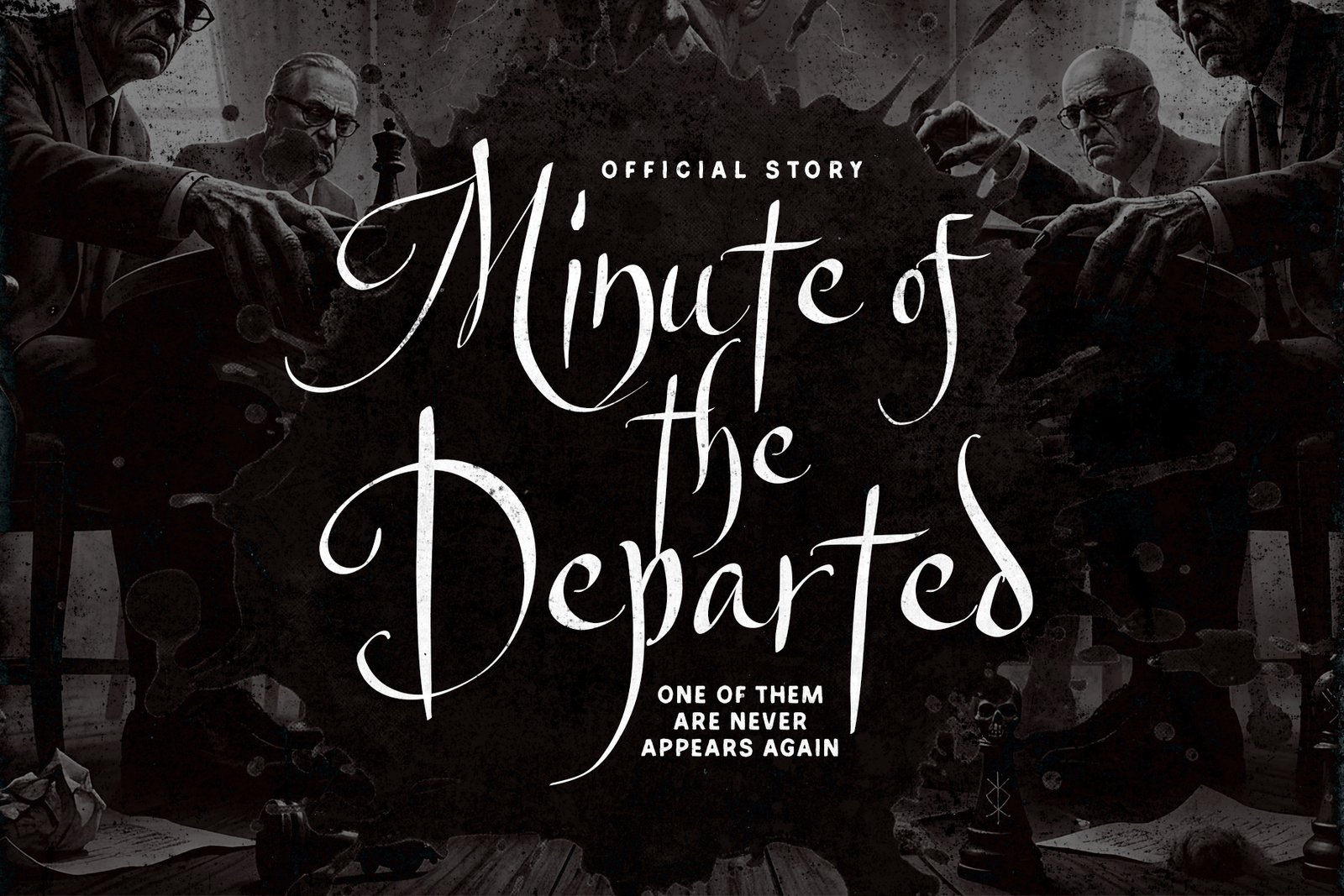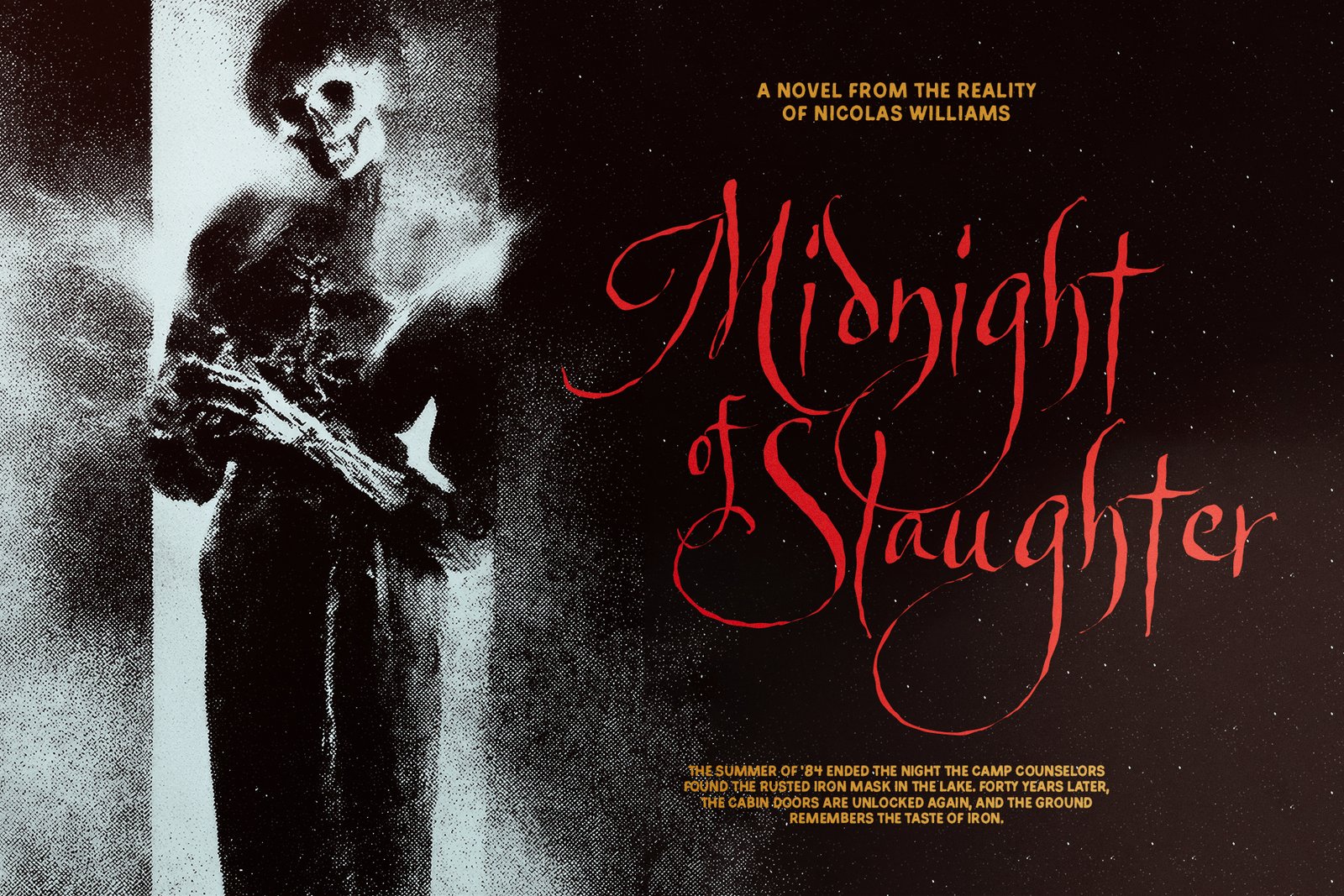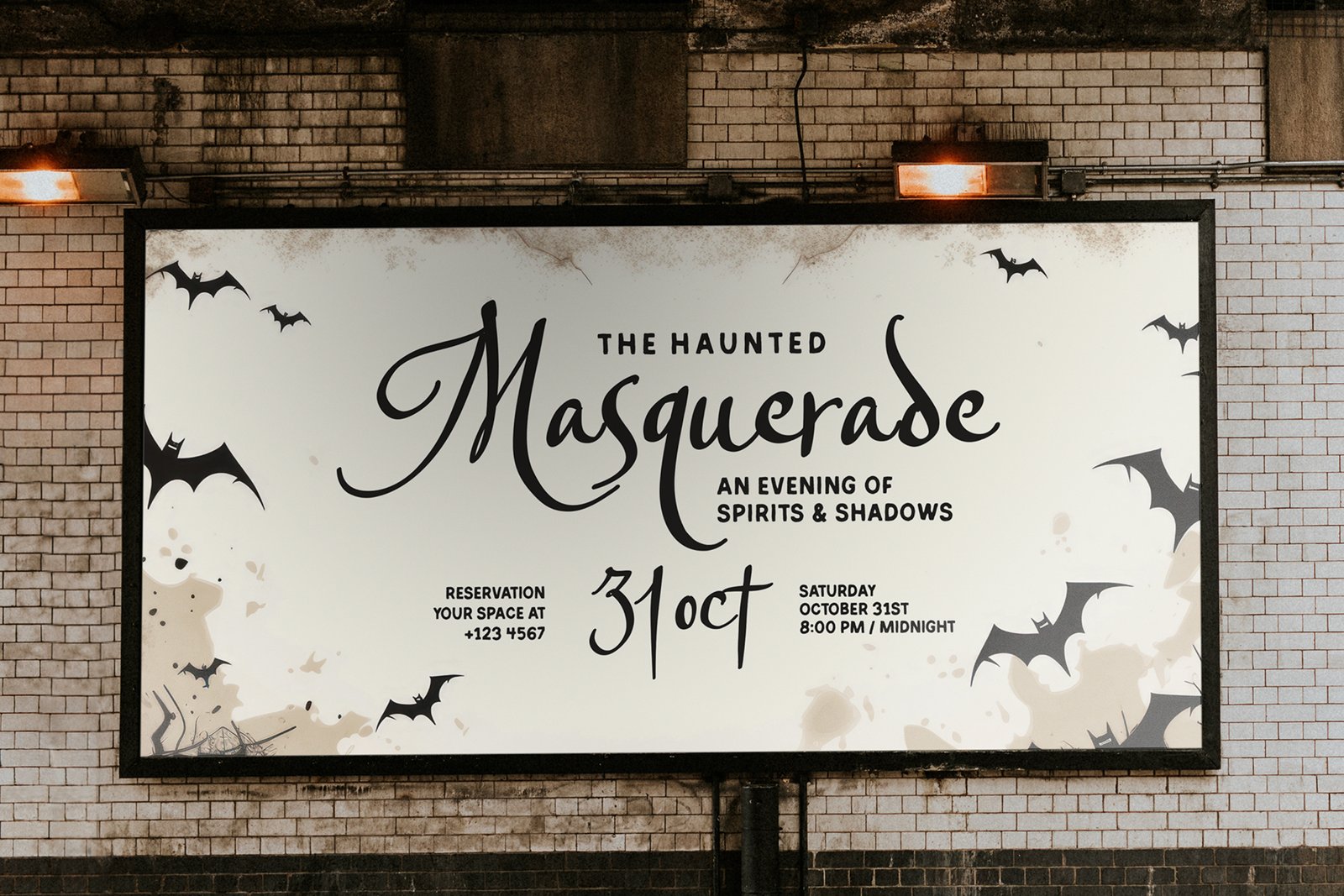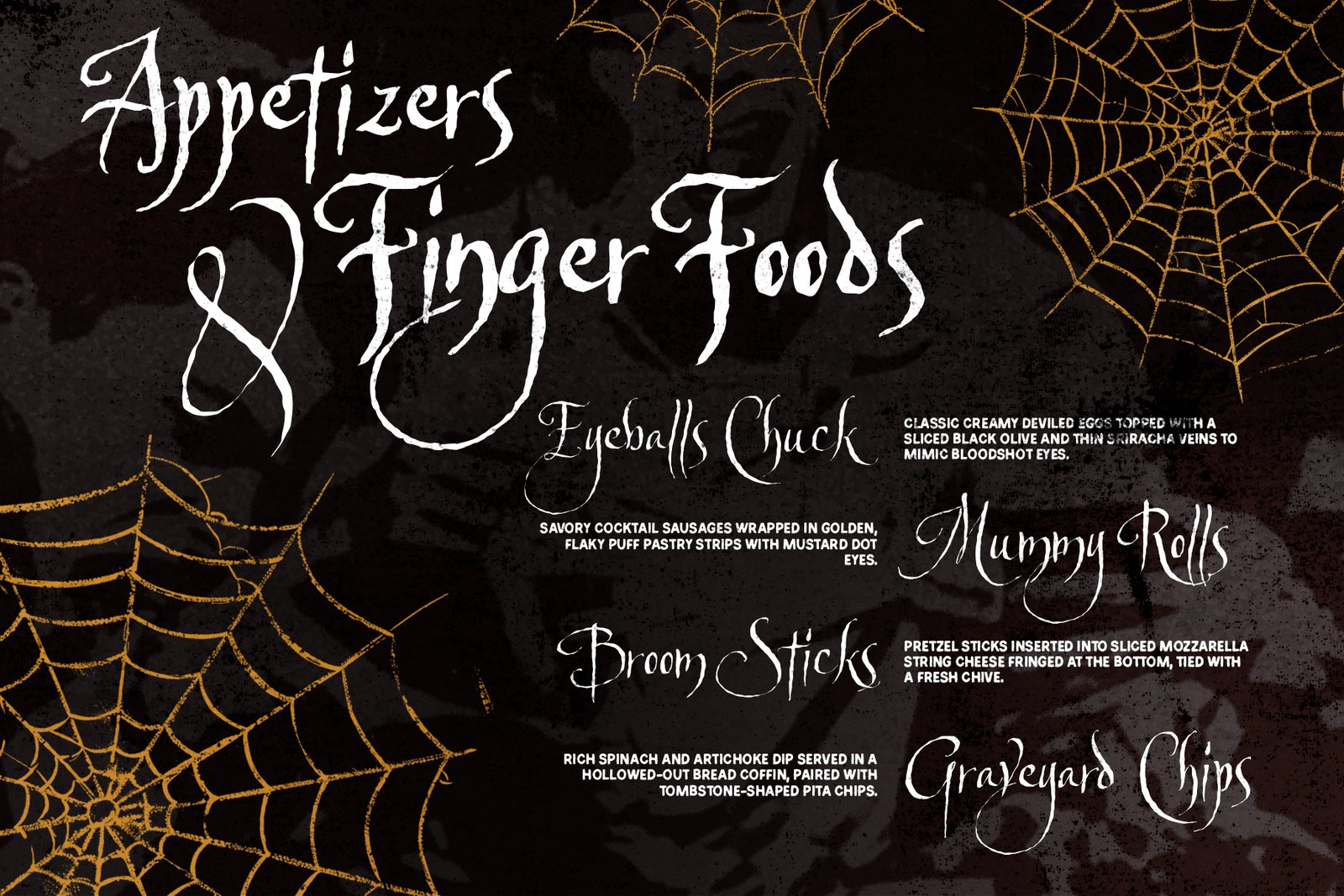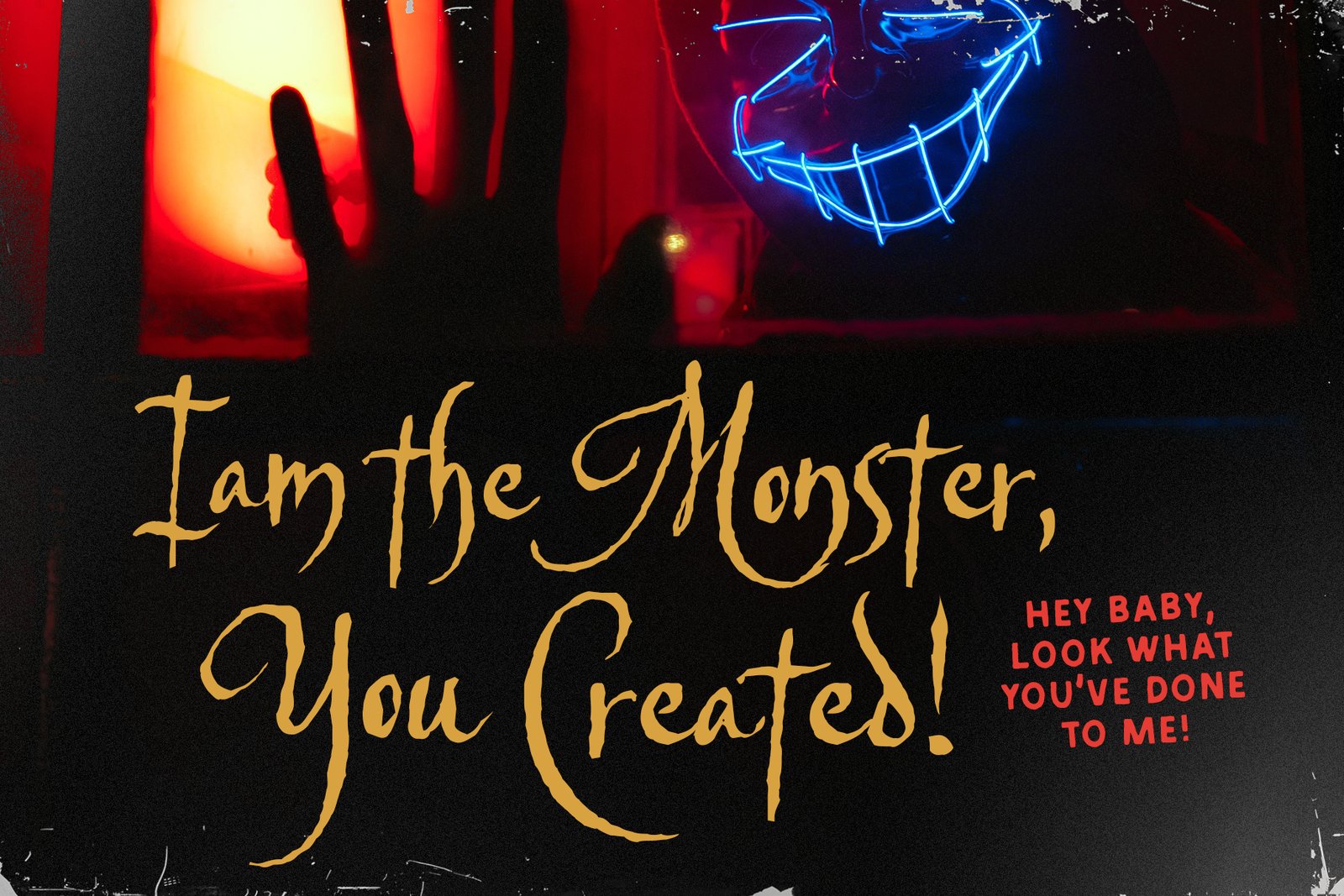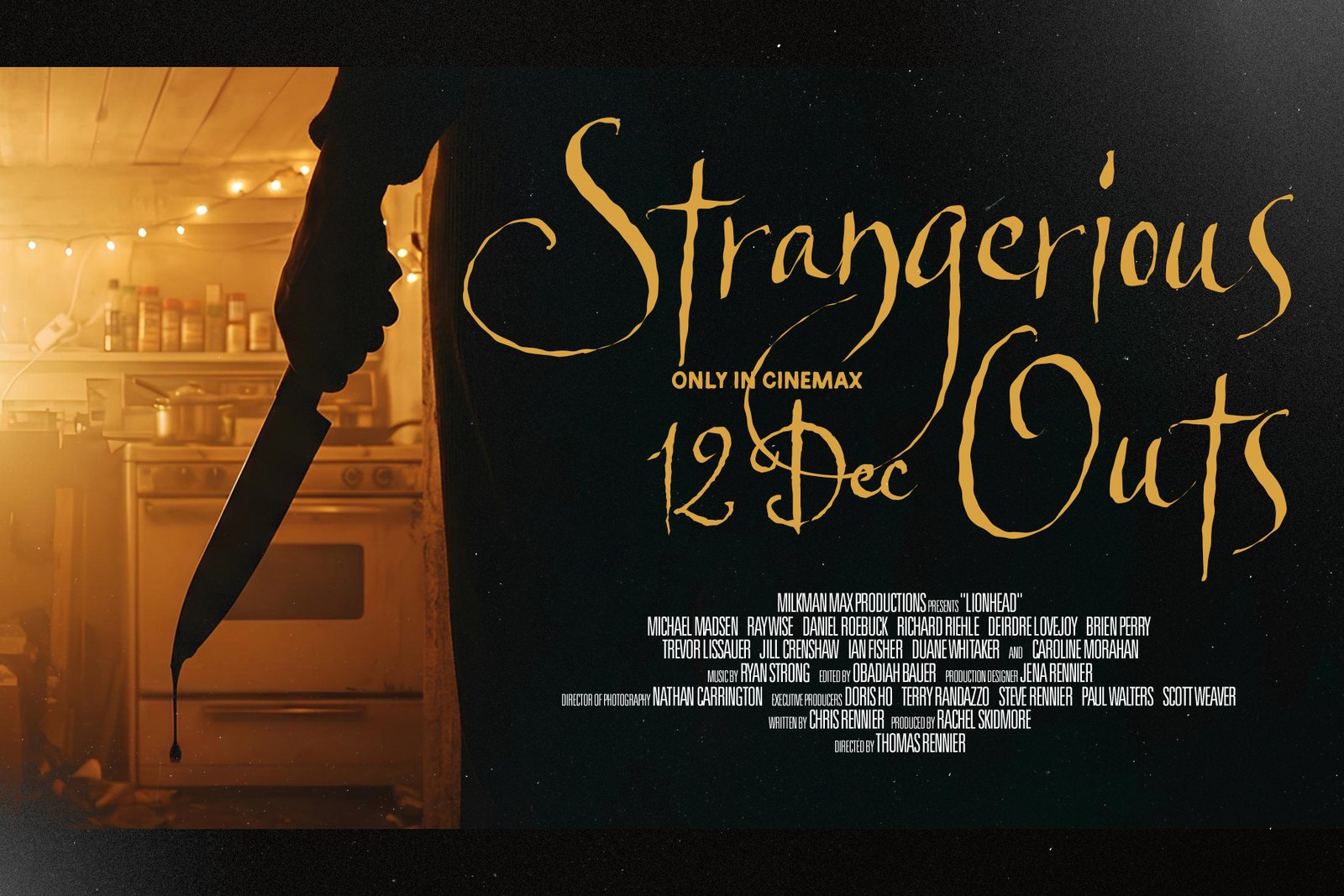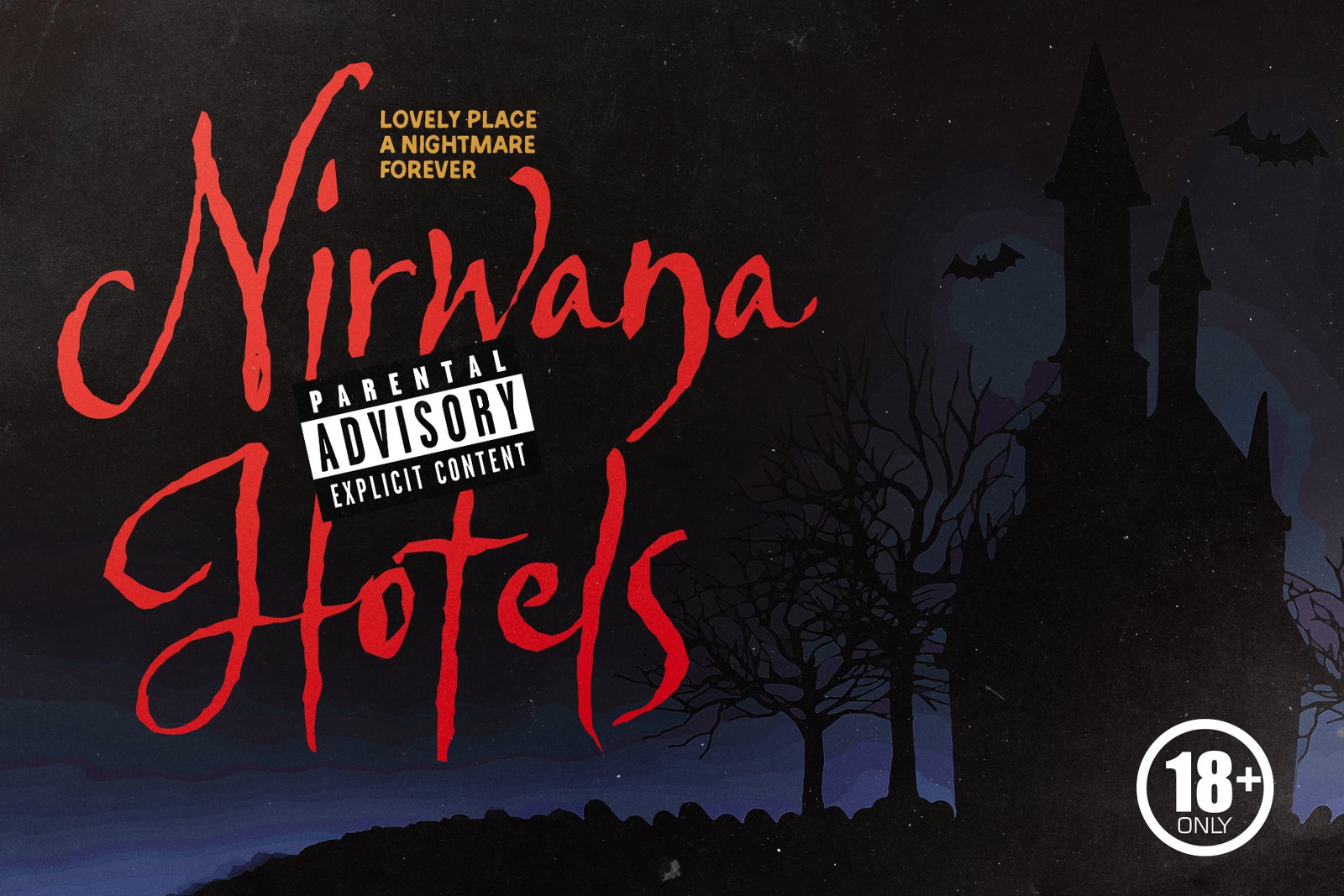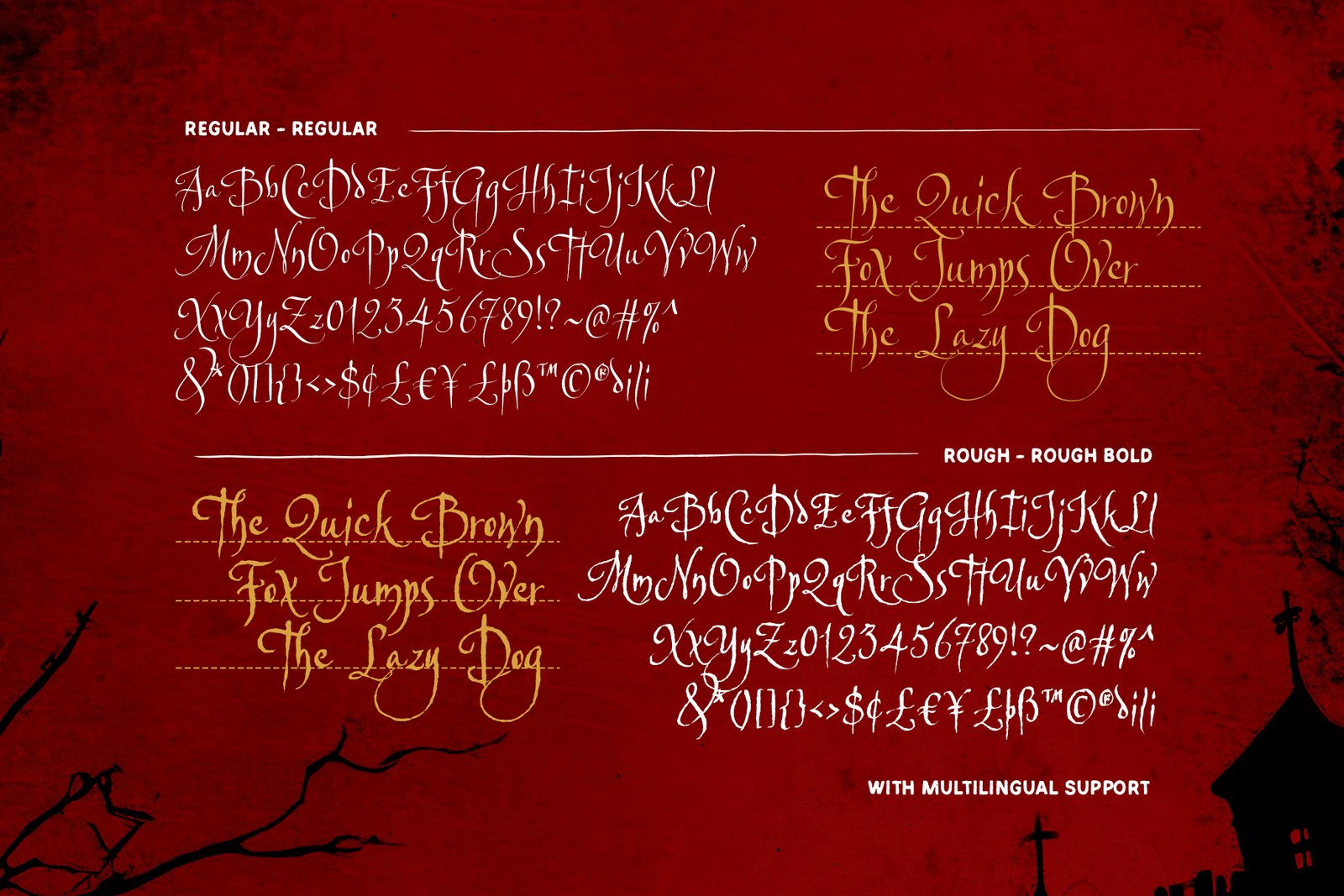
Gothic Saturday – Creepy Script Font
Introducing Gothic Saturday, a hand-lettered script font with an eerie and haunting character, perfect for adding a mysterious edge to your designs.
Introducing Gothic Saturday, a hand-lettered script font with an eerie and haunting character, perfect for adding a mysterious edge to your designs. Perfect for horror and thriller movie posters, Halloween artwork, book covers, quotes, branding, and other gothic-themed projects, Gothic Saturday brings a bold yet stylish atmosphere to your typography. You can choose the regular or rough to suits your project. Its versatile design can also be used for unconventional and edgy creative projects beyond the horror genre. With multilingual support included, Gothic Saturday is ready to bring its chilling personality to designs around the world.